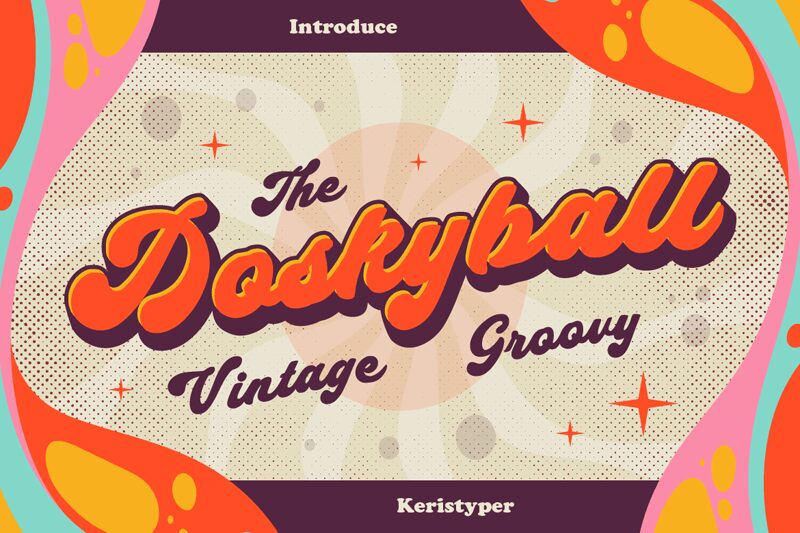
Doskyball Regular
Doskyball font by Tezar Tantular is a free bold groovy brush script font. It leans into fat, inky strokes and buttery connections, giving each word the swagger of hand‑painted signage. Rounded terminals and a lively, slightly bouncing rhythm keep it friendly while the weight delivers punch, so headlines feel lush and immediate without getting messy.
Using Doskyball, titles snap into focus on retro posters, café signage, packaging, event flyers, social graphics, and merch. The tight letterfit creates a smooth ribbon of texture, great for short phrases and logo lockups. For balance, pair this free font with a crisp condensed sans and add a touch of tracking at larger sizes to let those swoops breathe.
Doskyball; Created by Keristyper part of Kerismaker Studio